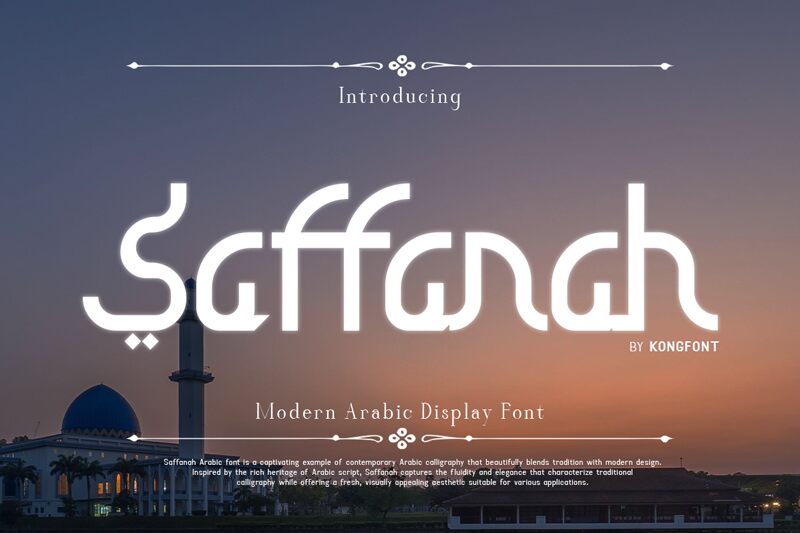
Saffanah font by Kong Font is a free faux Arabic decorative typeface that instantly evokes Middle Eastern moods while keeping text clean and readable. Its rounded strokes, hooked curves, and looping shapes echo traditional calligraphy, but the overall structure stays geometric and steady, so words feel both exotic and controlled. The letters connect visually like a flowing ribbon, giving logotypes and headlines a smooth, continuous rhythm.
Using Saffanah, you can brand a hookah lounge, halal restaurant, travel poster, Ramadan campaign, festival flyer, or themed packaging with a clear, stylized Arabic-inspired voice. This free font shines at larger sizes where its curved details can breathe; pair it with a simple sans serif for small body text to keep layouts balanced and legible.